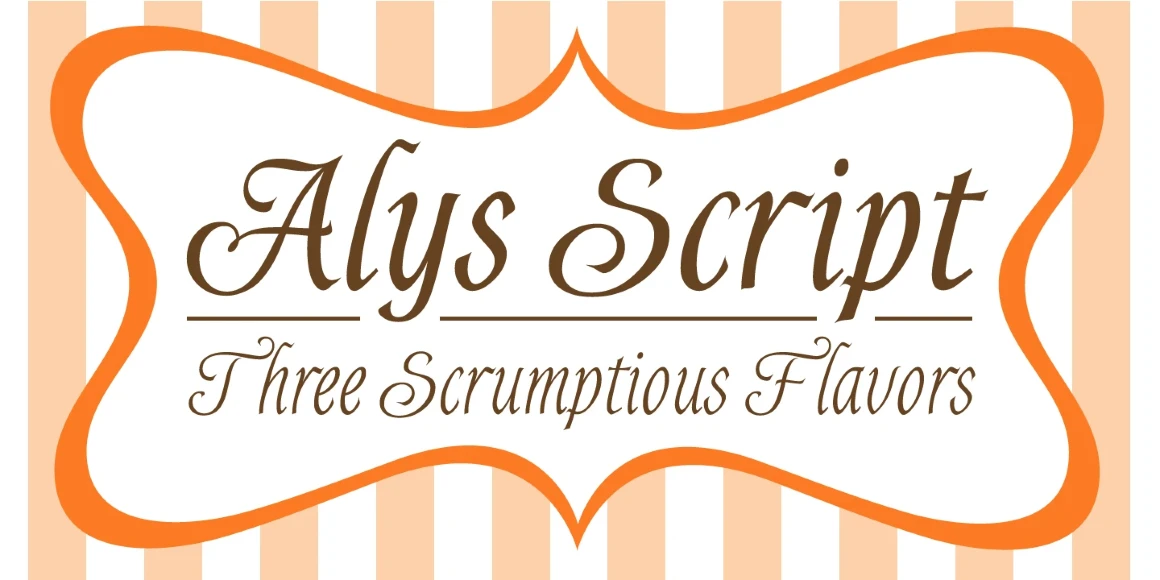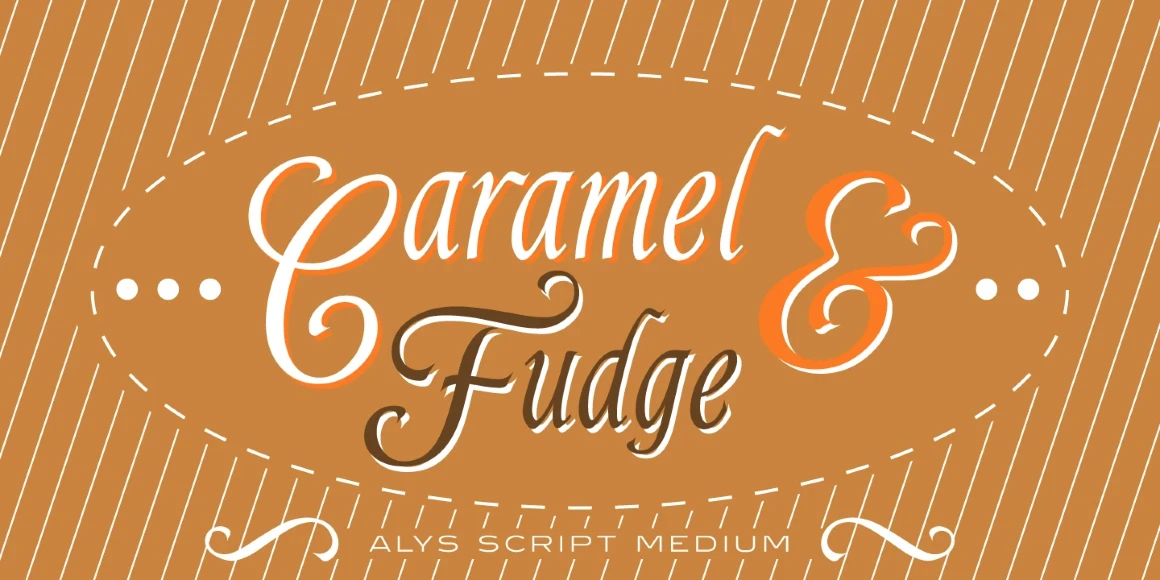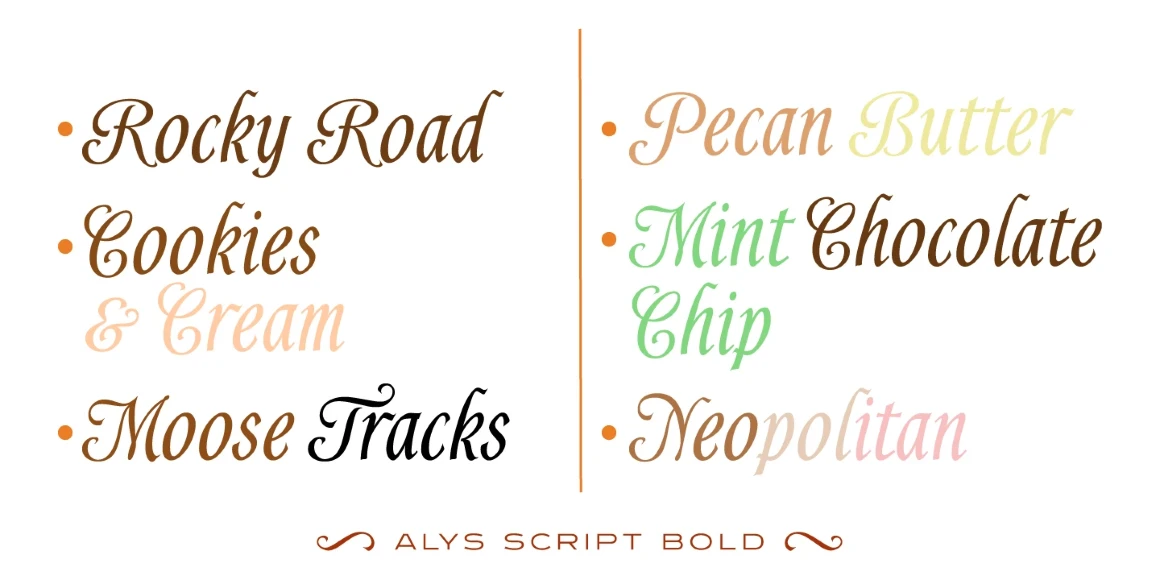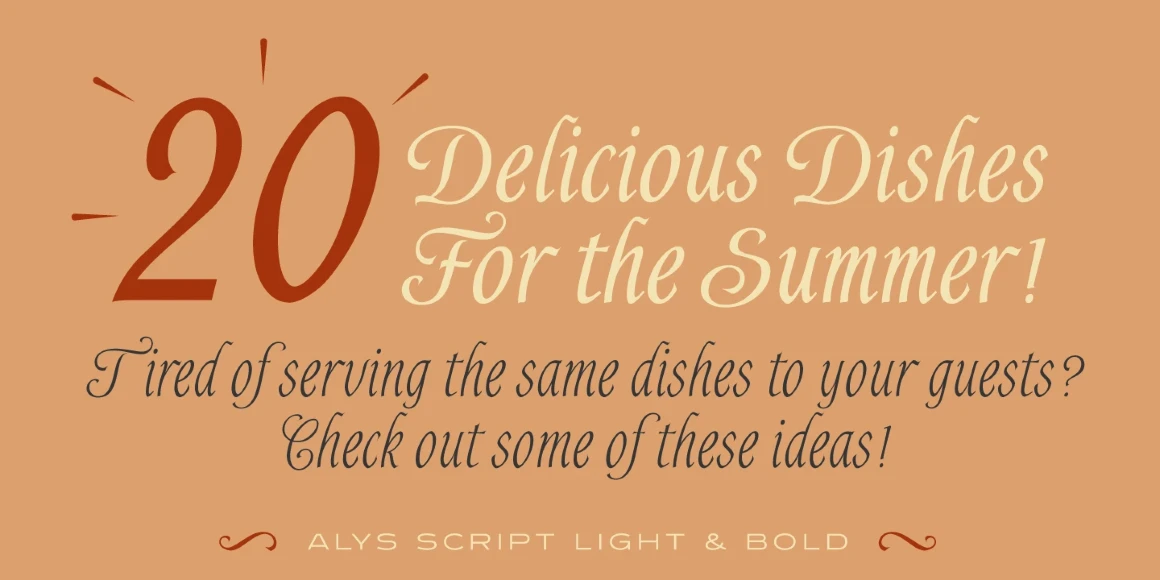
Alys Script
Alys Script Light
Alys Script Medium
Alys Script Bold
Alys Script is a calligraphic script font family. It was designed by Pat Hickson (P&P Hickson) exclusively for the Red Rooster Collection, and produced by Steve Jackaman (ITF) in 1995. Alys is dedicated in loving memory to Hickson’s late mother, who shares the same name. Alys Script is calligraphic, elegant, and whimsical. At paragraph and display sizes alike is quite legible, and gives a soft, cozy feel wherever it is used.